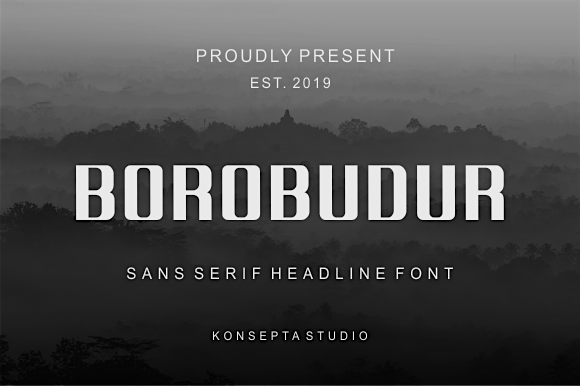
Hi, there! Proudly present my second font experimental project, name Borobudur. It was inspired by 7 wonder of the world. You can use it for personal use only. But, if you wanna use it for commercial purpose, feel free to contact me at konseptastudio@gmail.com. If you like my work, and want to support independent artist or designer like me, just buy me a cup of coffee. Paypal account for donation : https://paypal.me/konseptastudio/ Purchase at our store : https://www.creativefabrica.com/product/borobudur/ref/235542/ Thanks for your support, download, and donation. Let's have font together! |